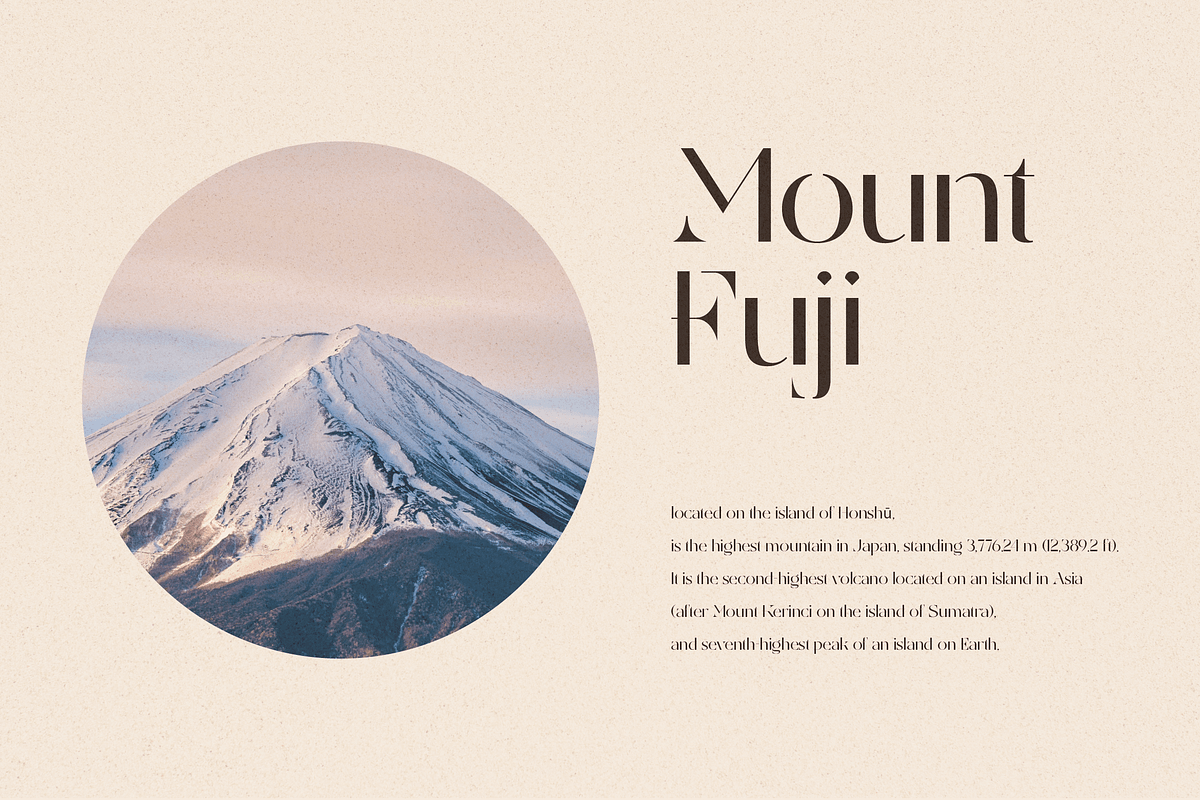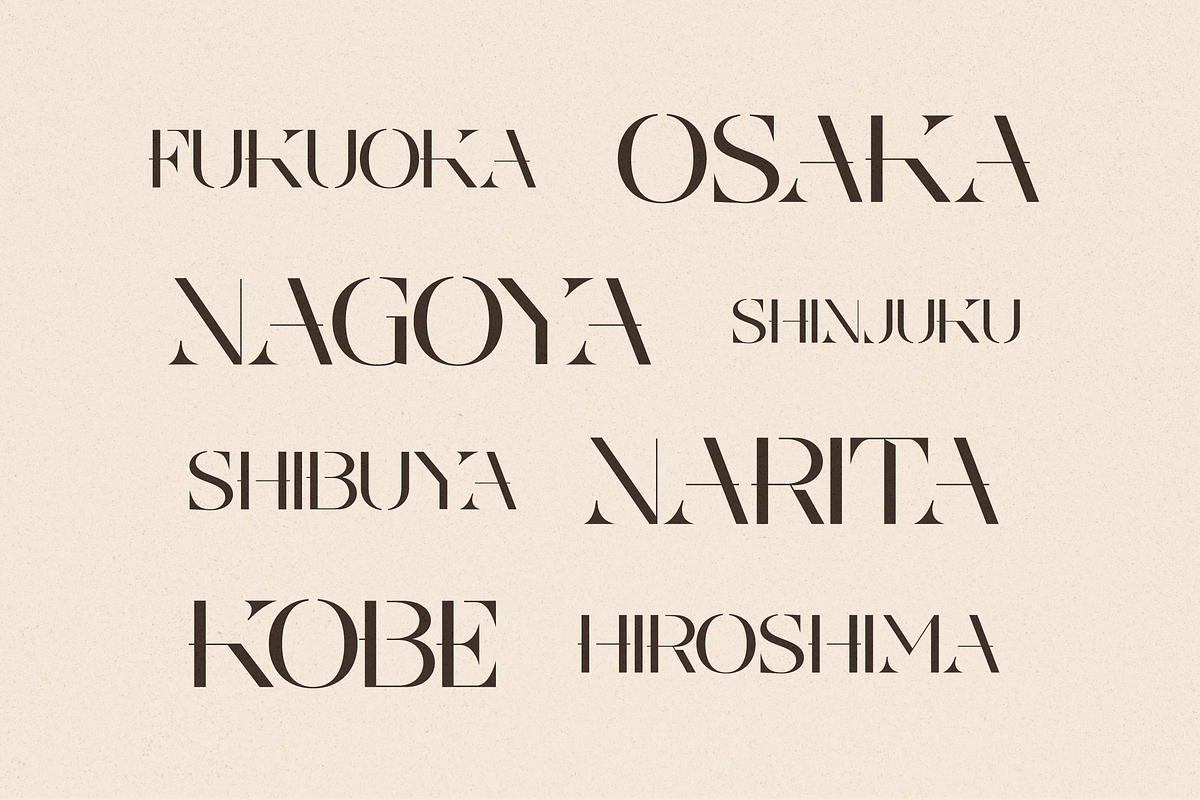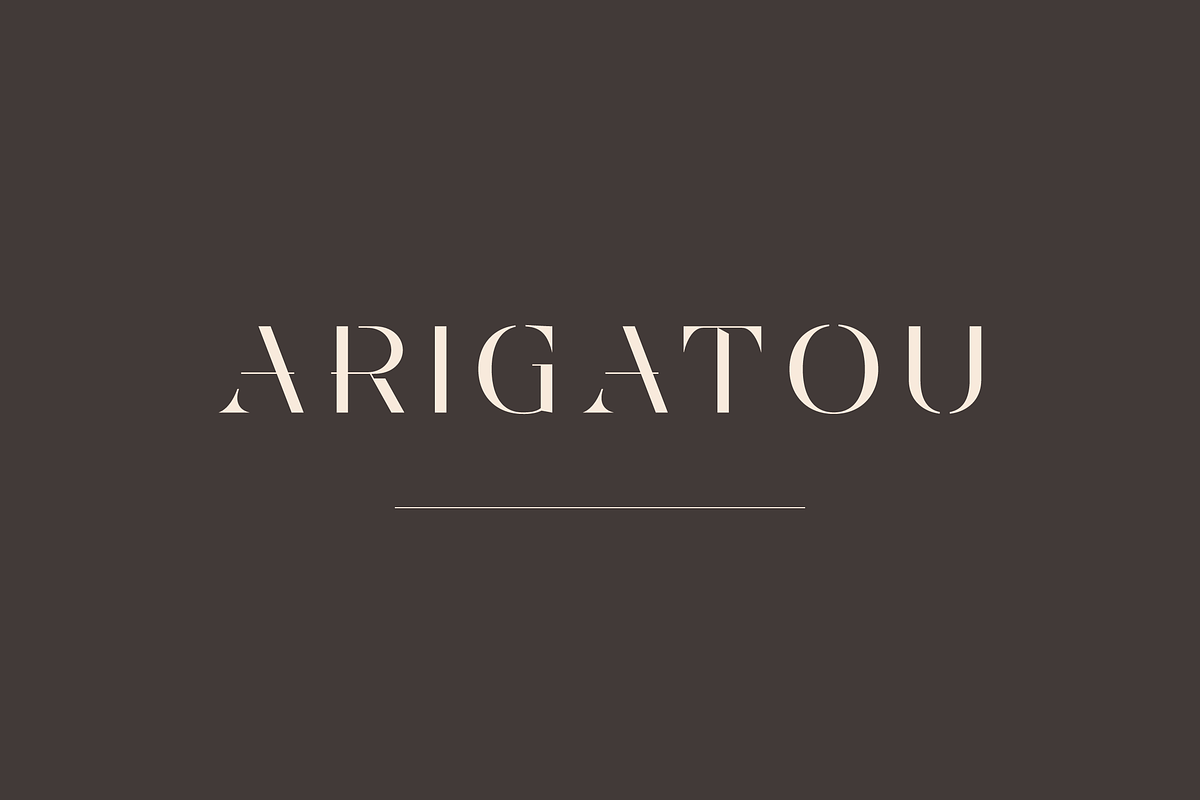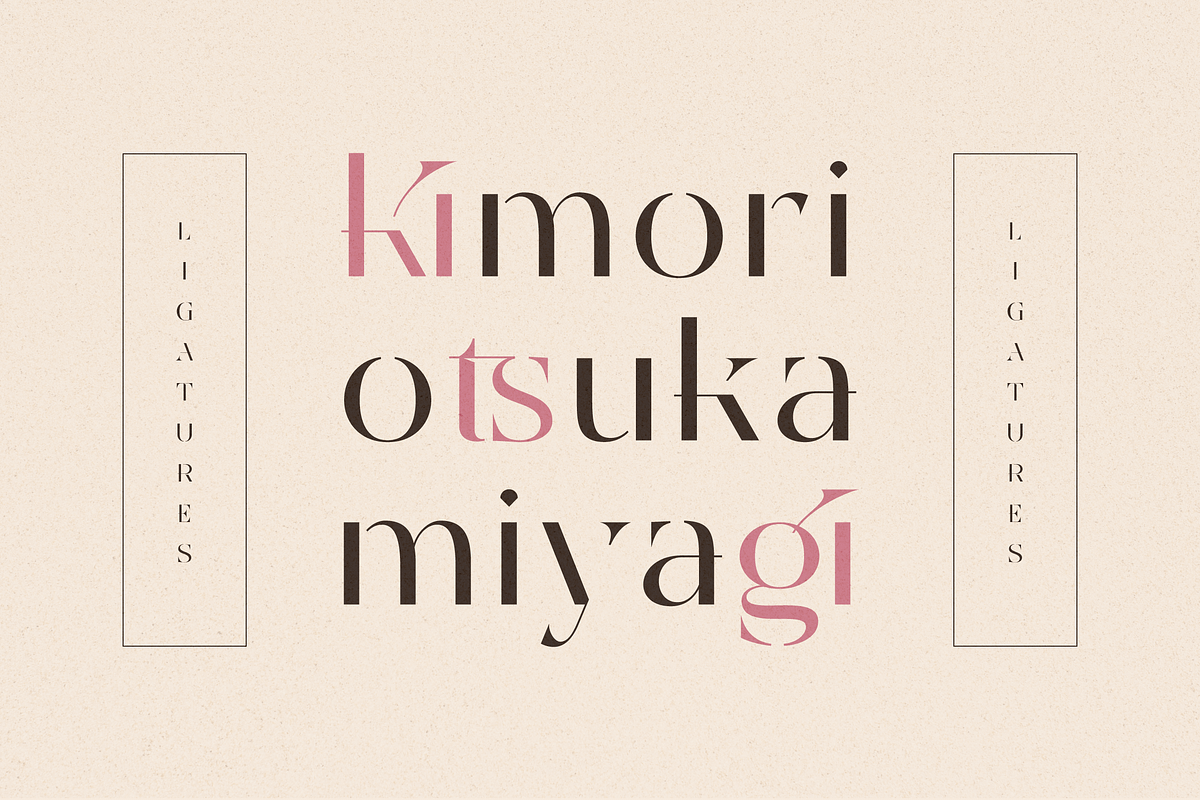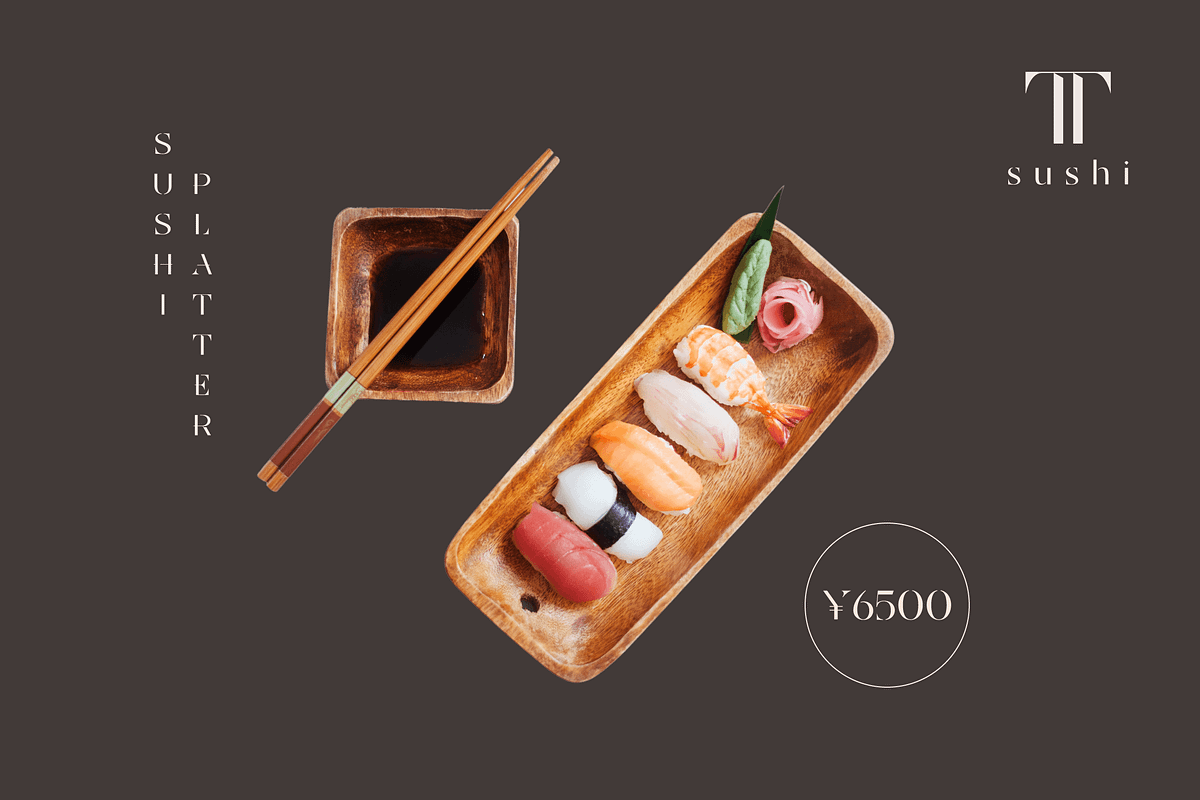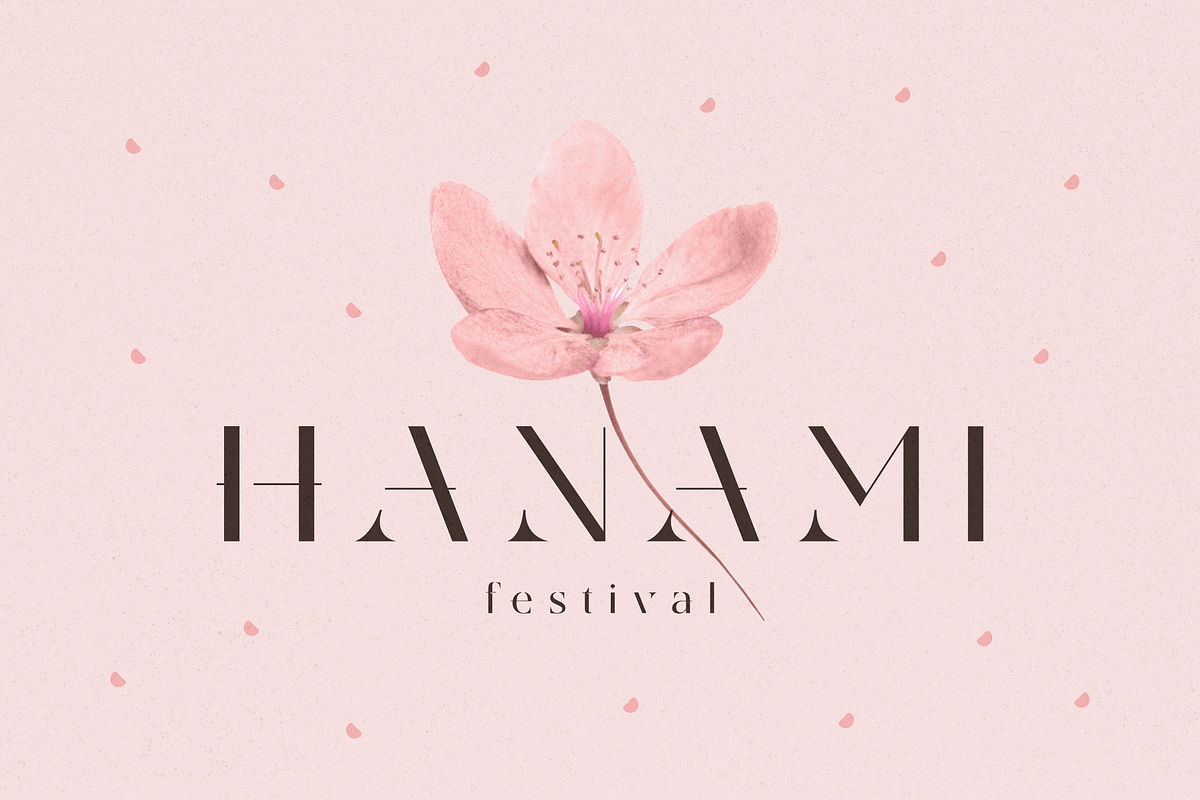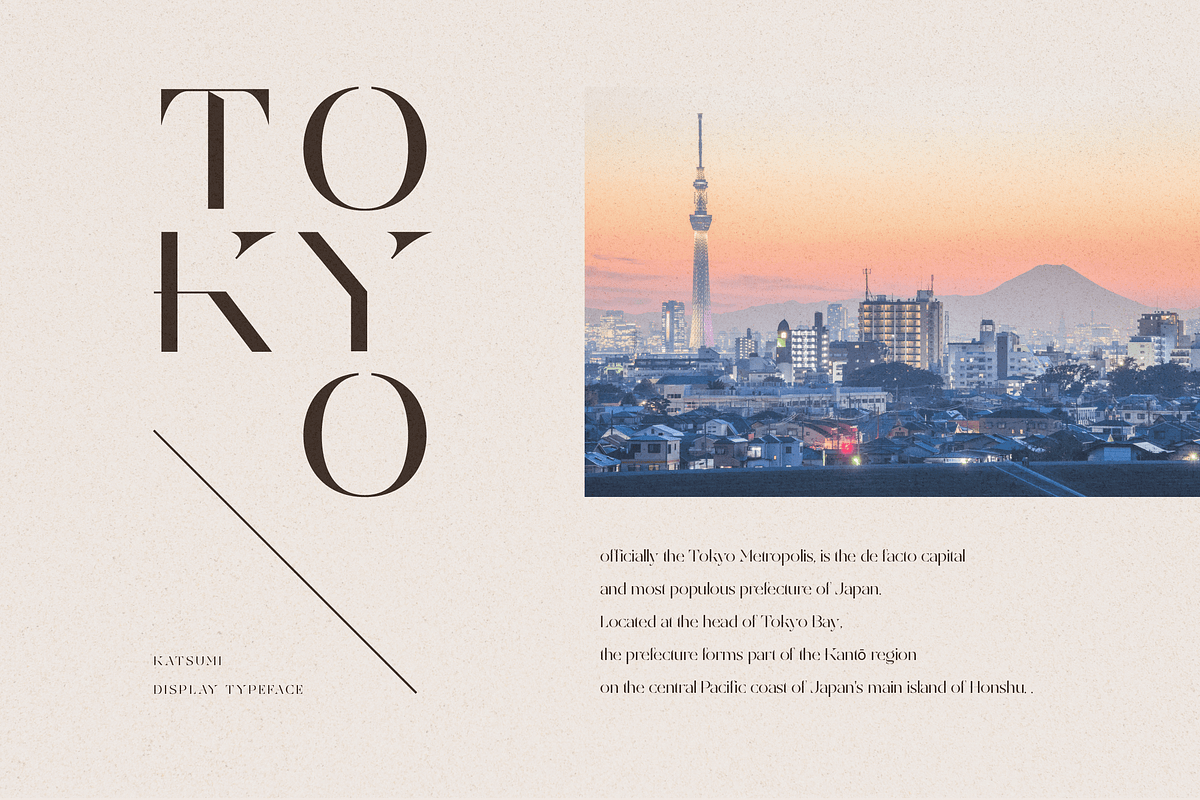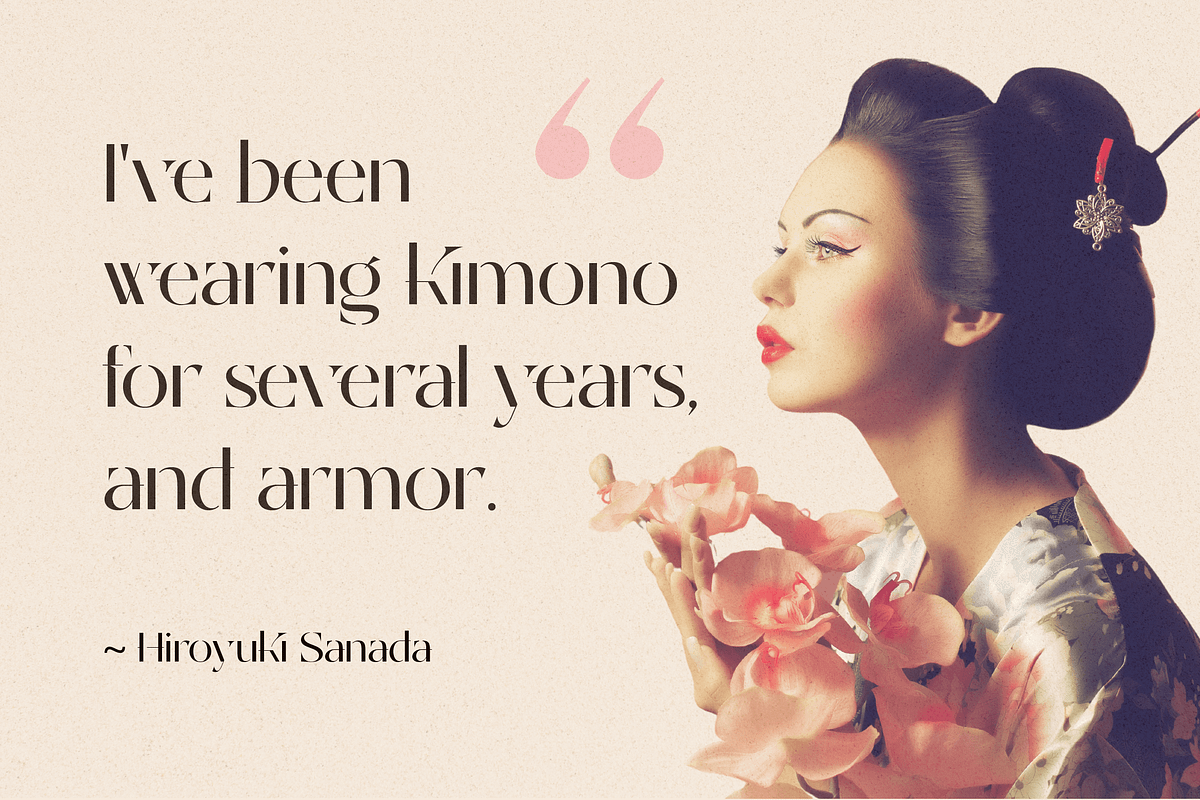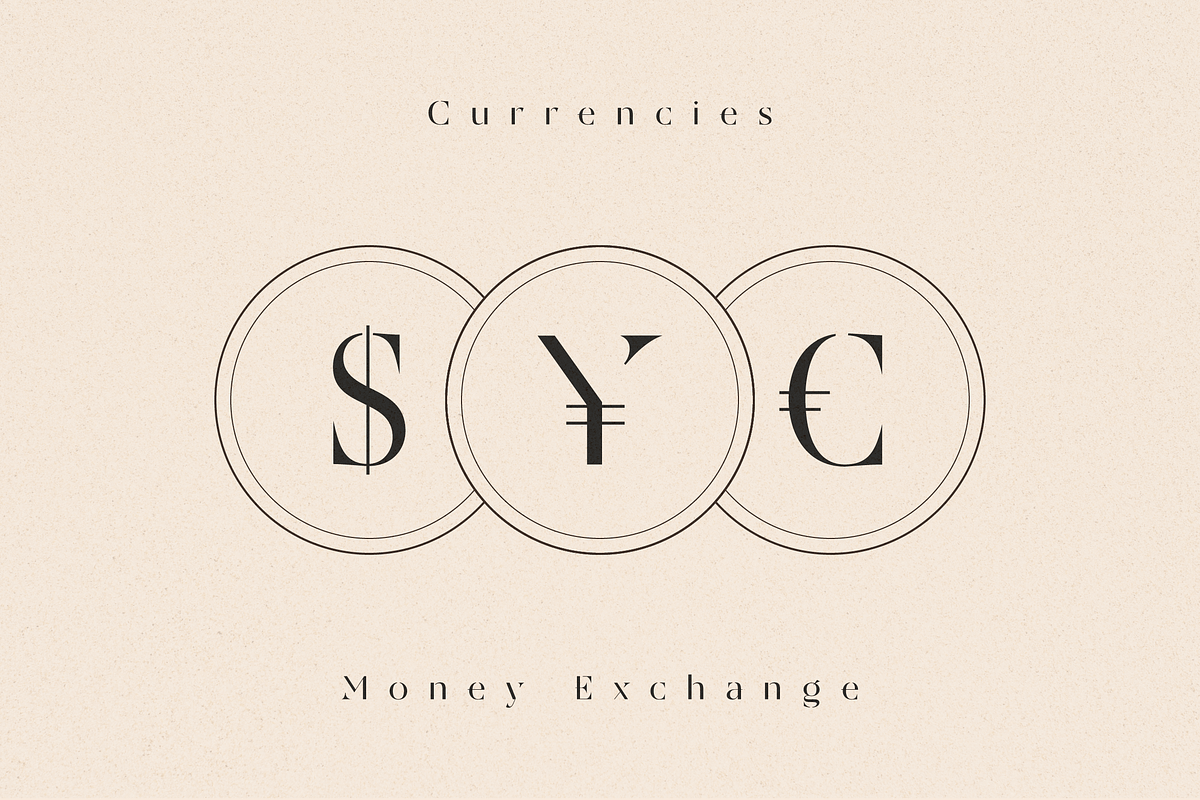
KATSUMI - Japanese Font
Katsumi is a serif typeface inspired by hiragana. Katsumi meaning victorious beauty. It comes with some alternates and ligatures. Katsumi would be perfect for any Japanese-themed project such as branding, movie title, restaurant menu, labels, and more.
- UPPERCASE and lowercase